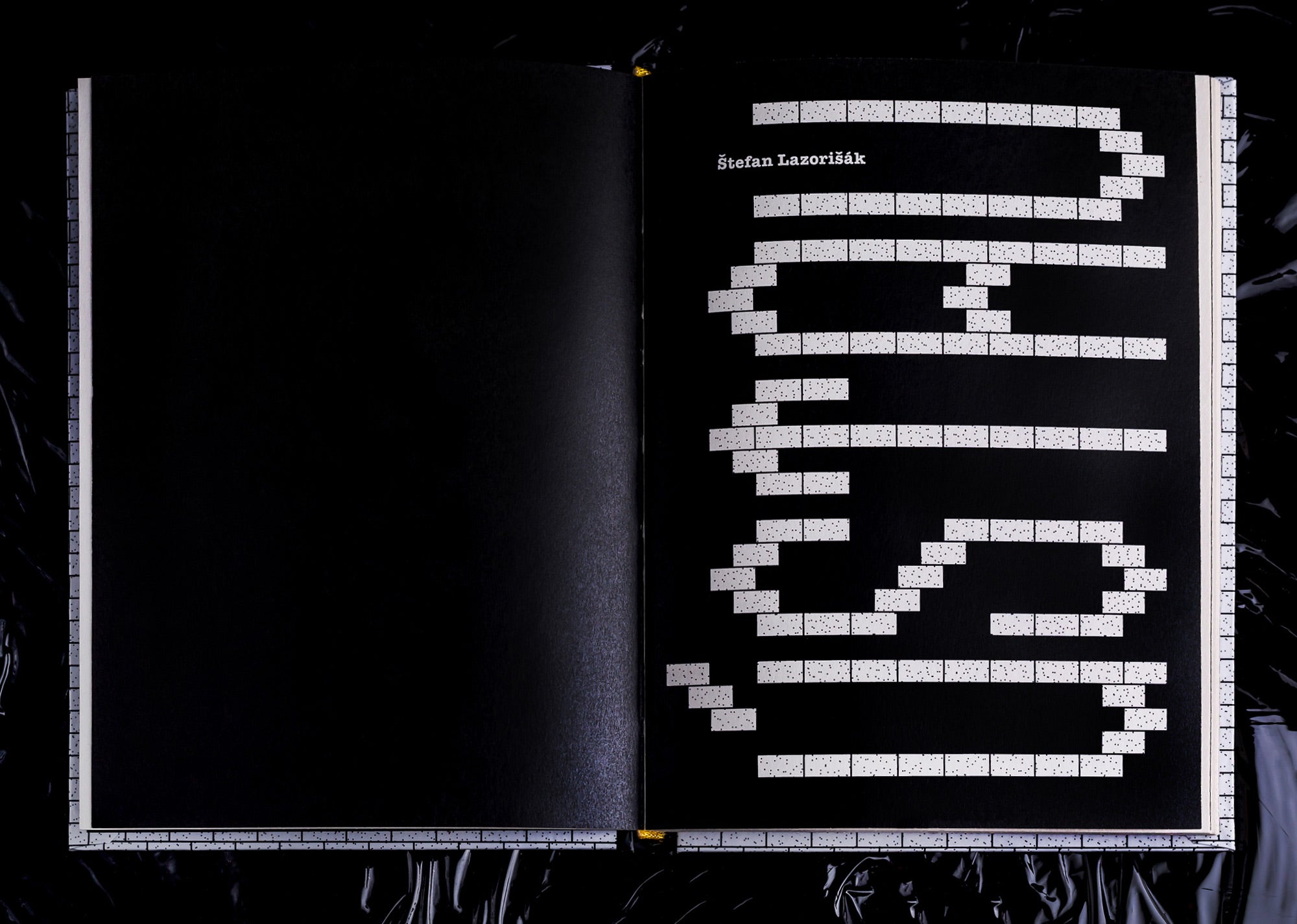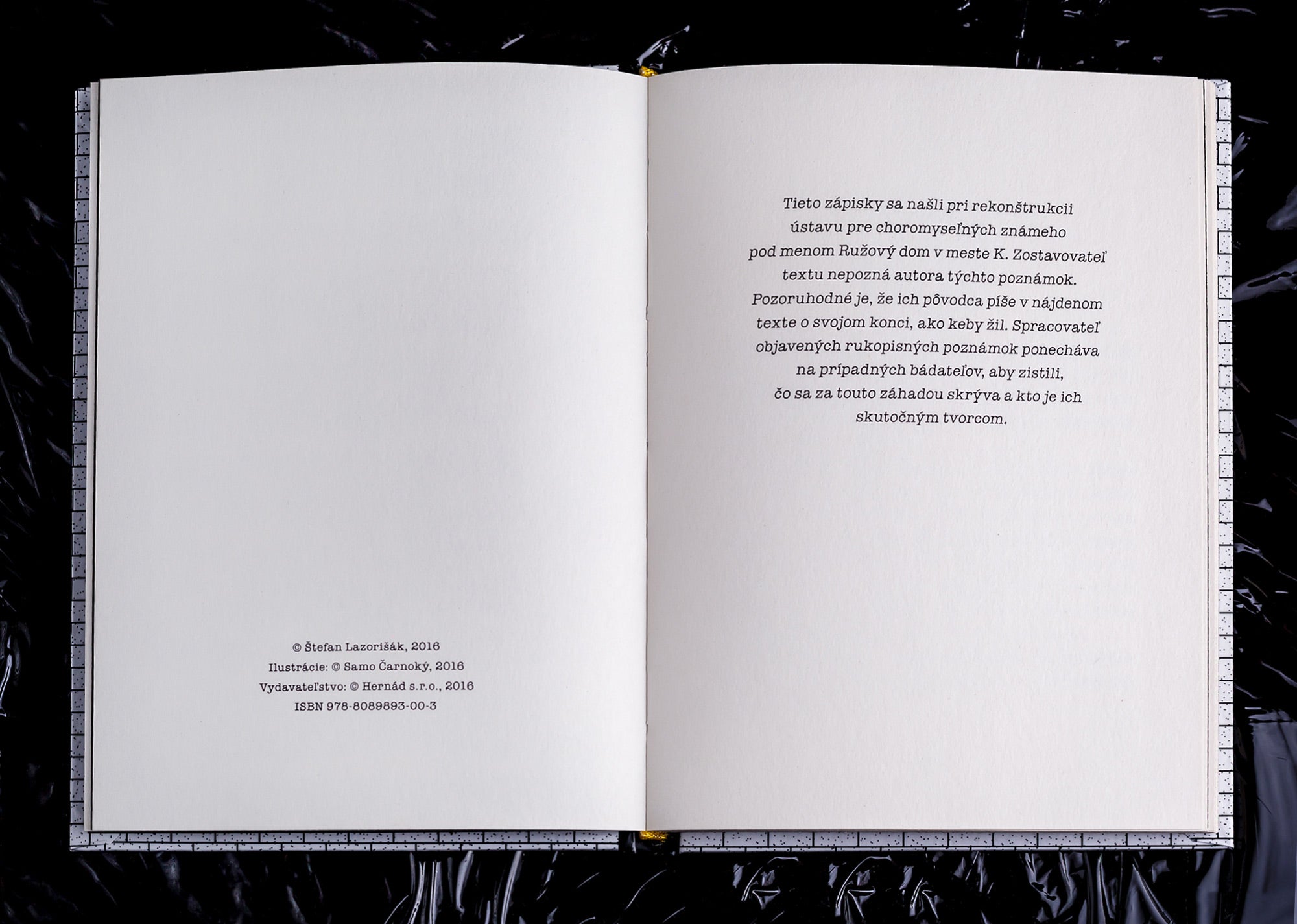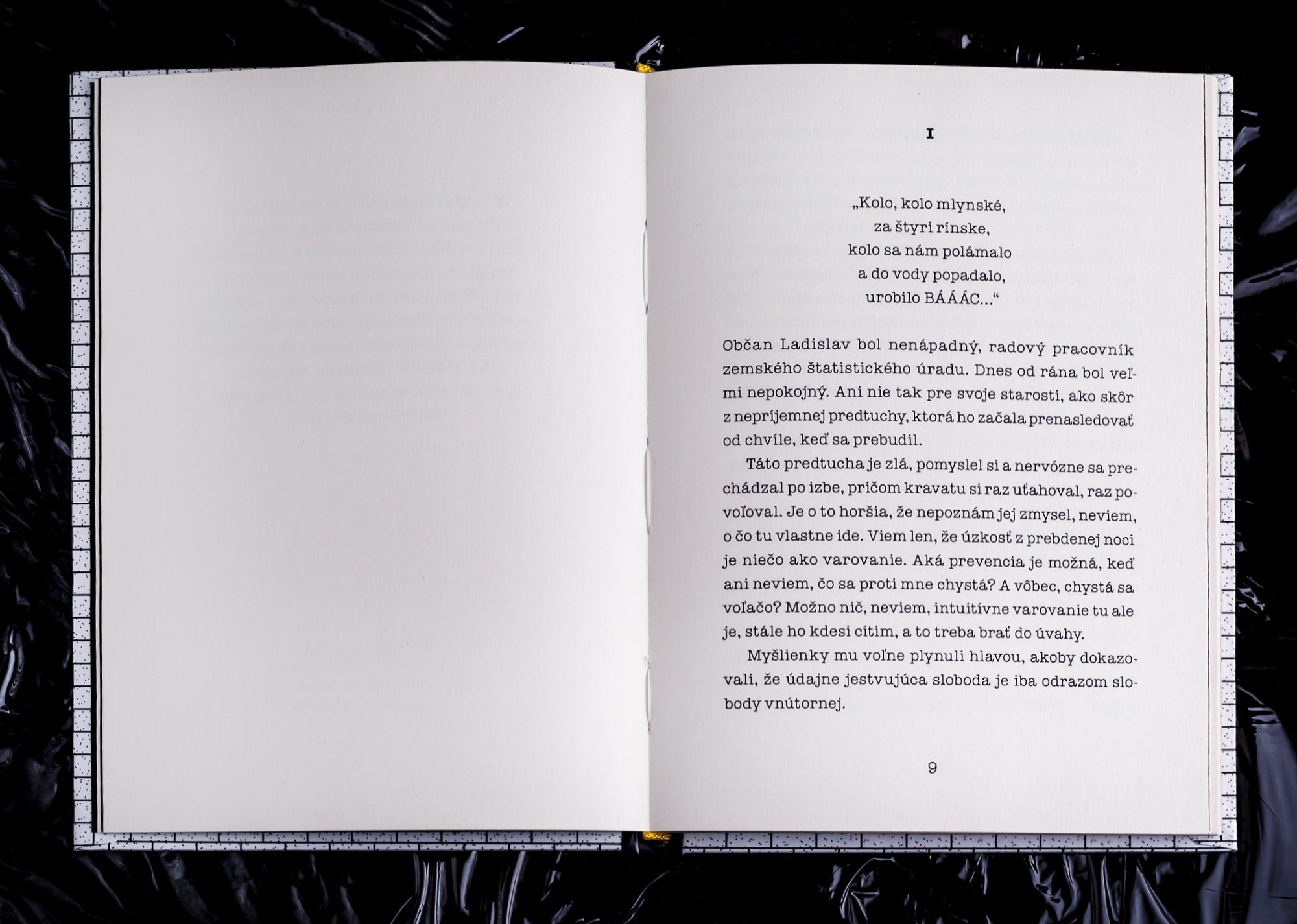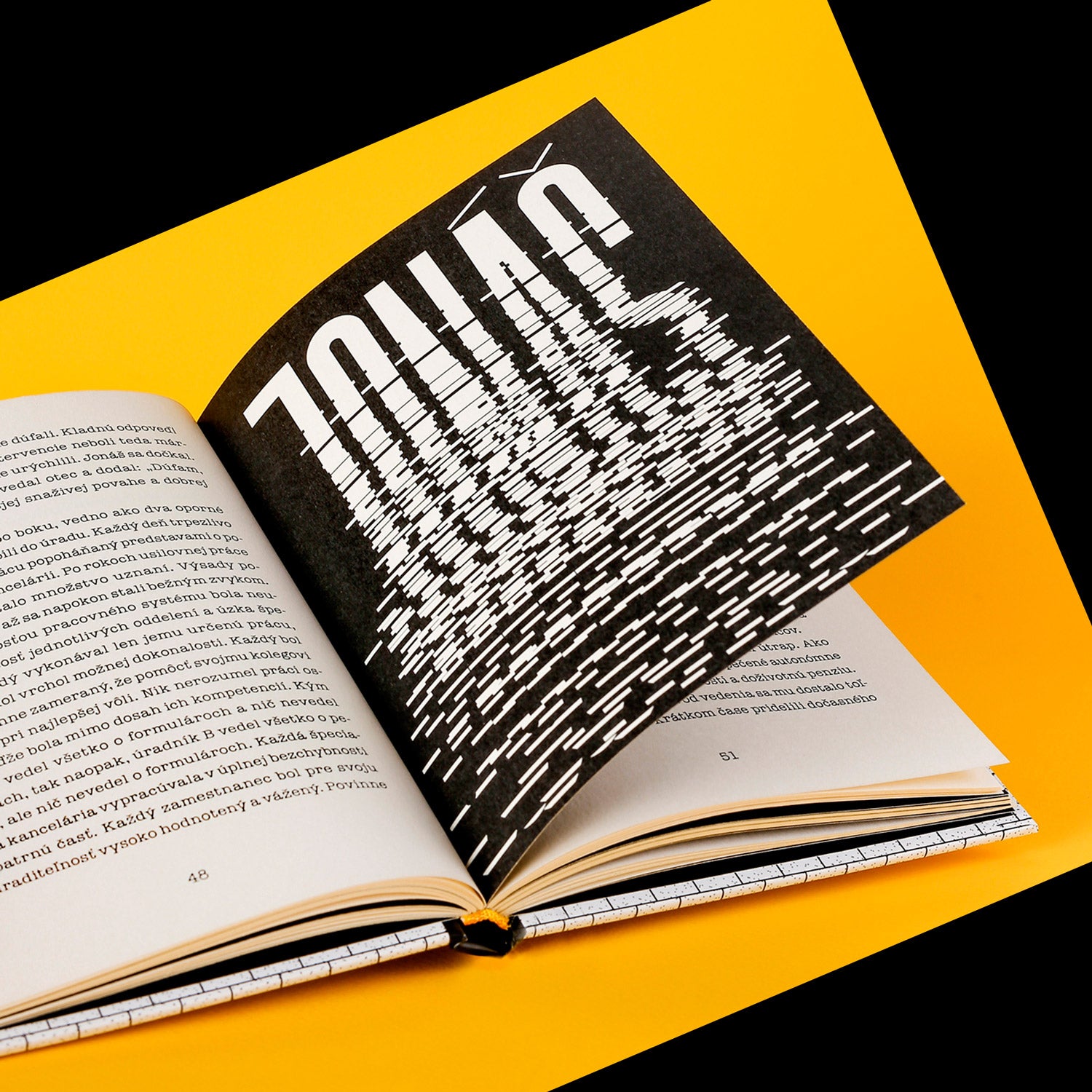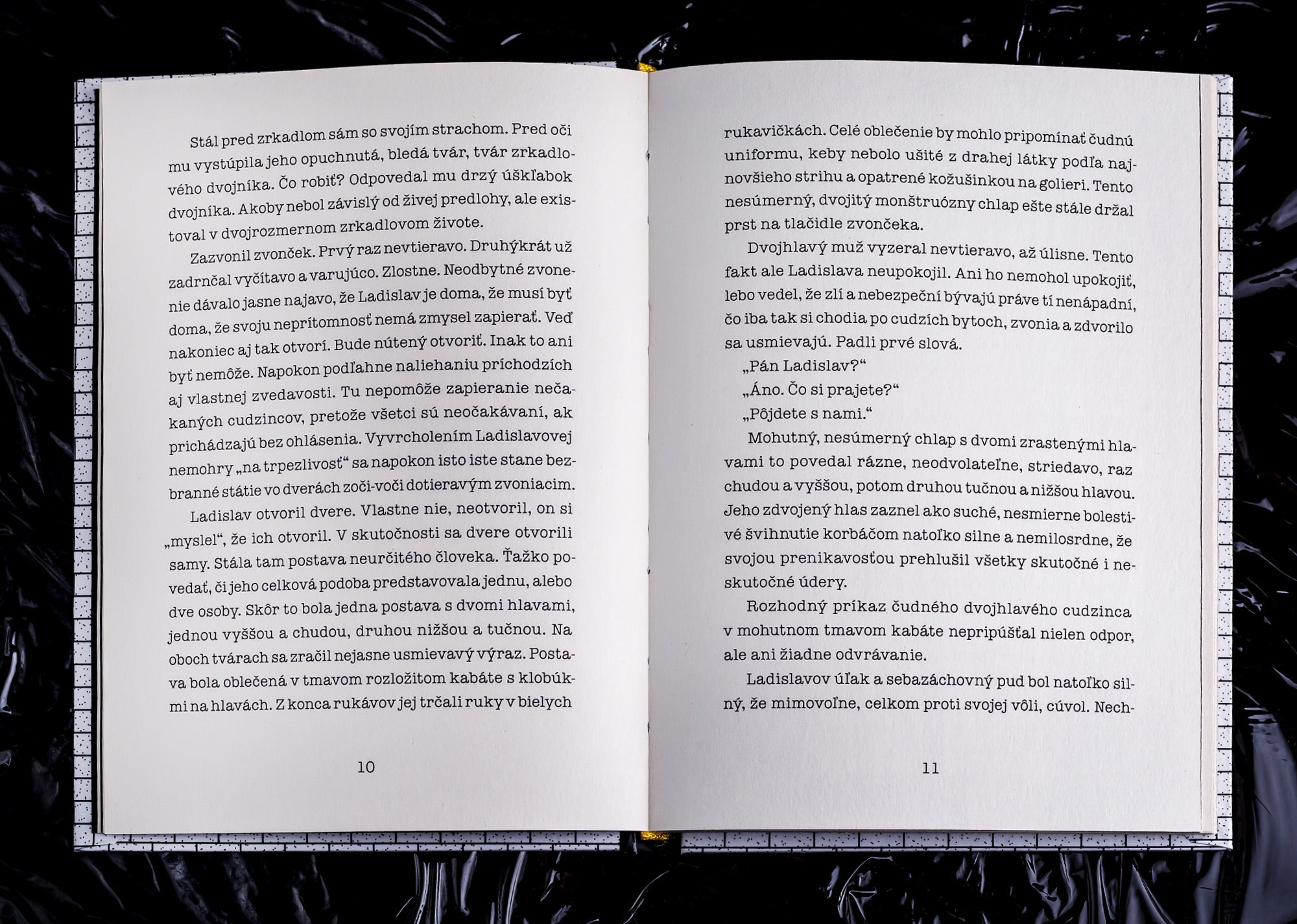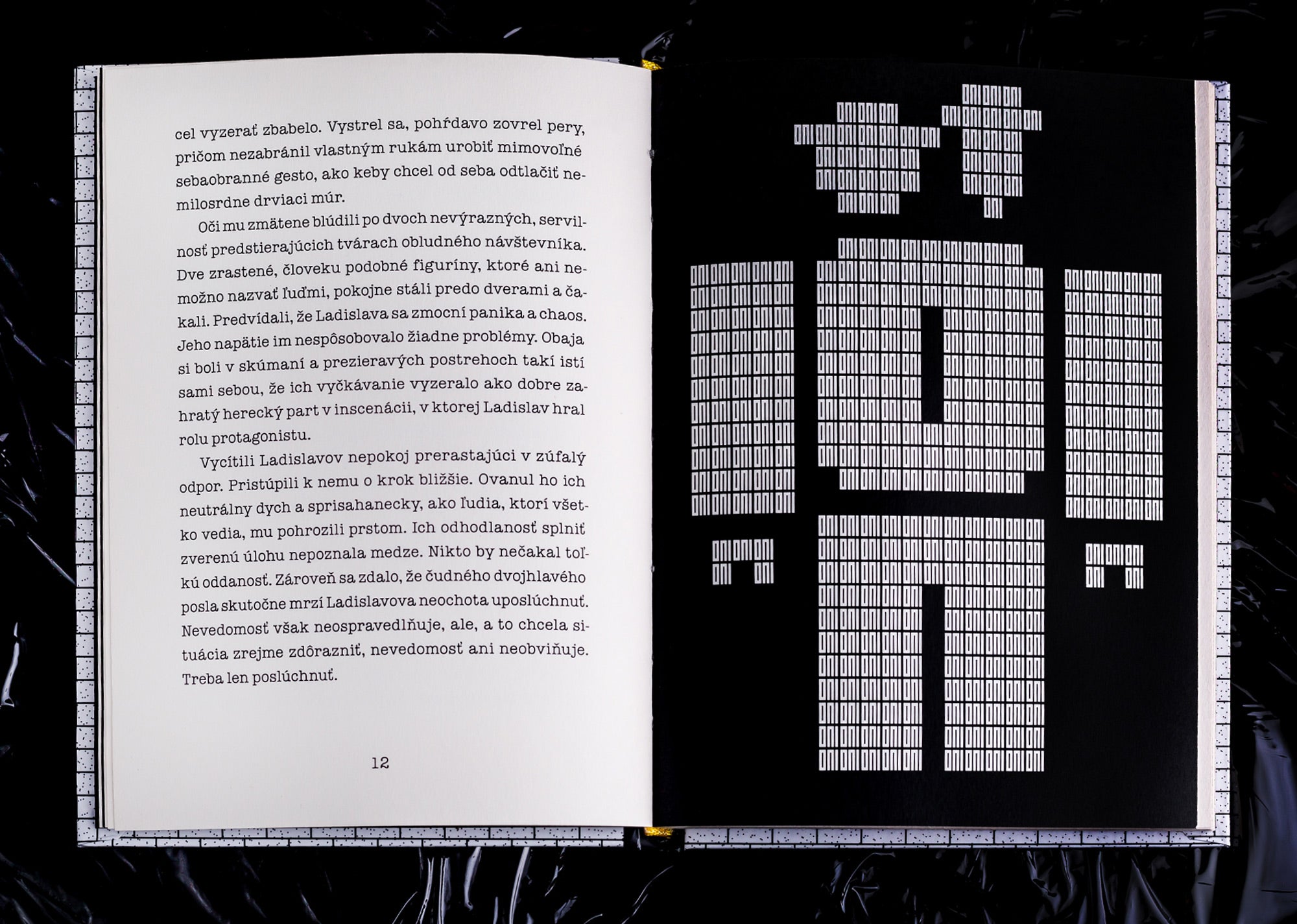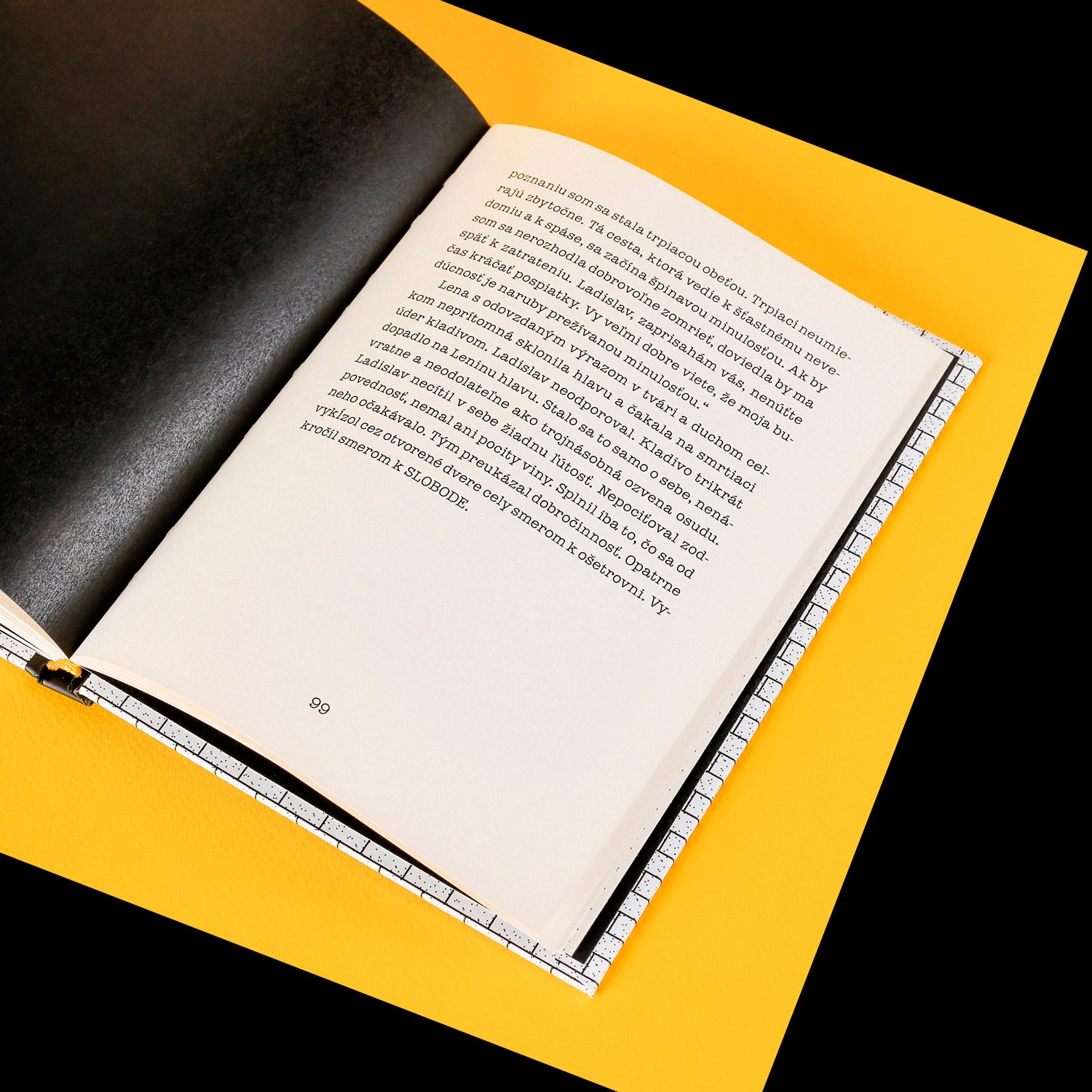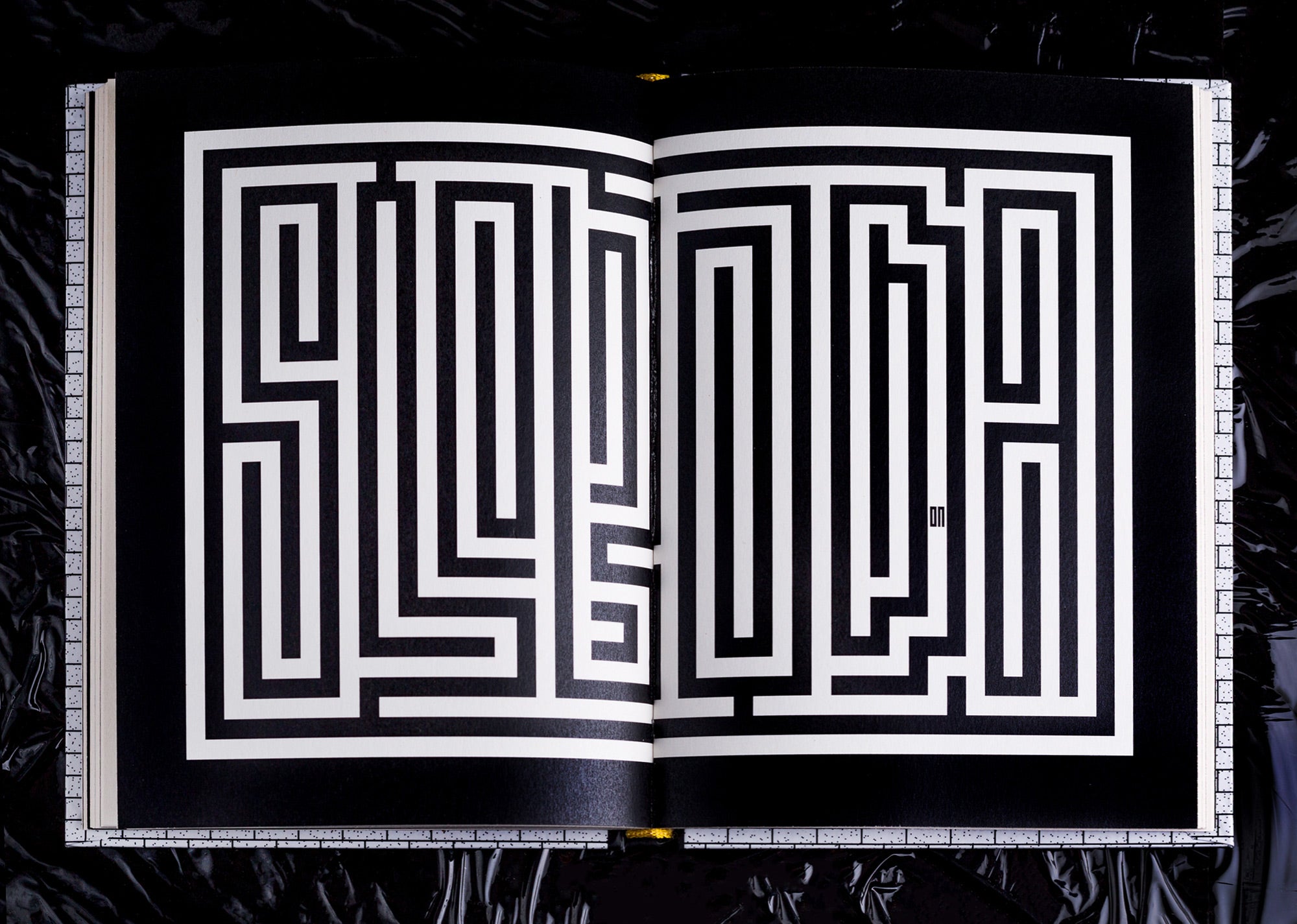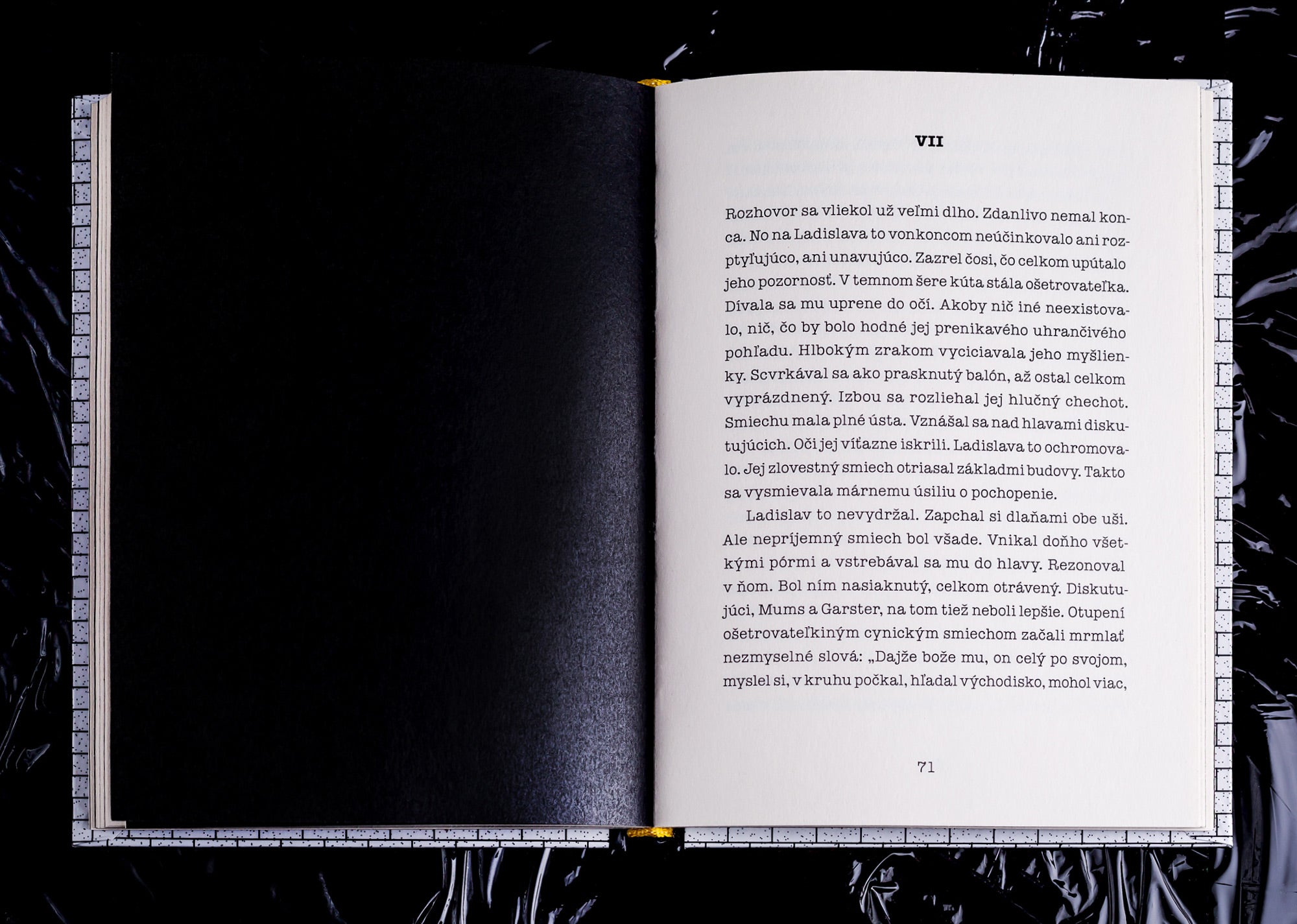
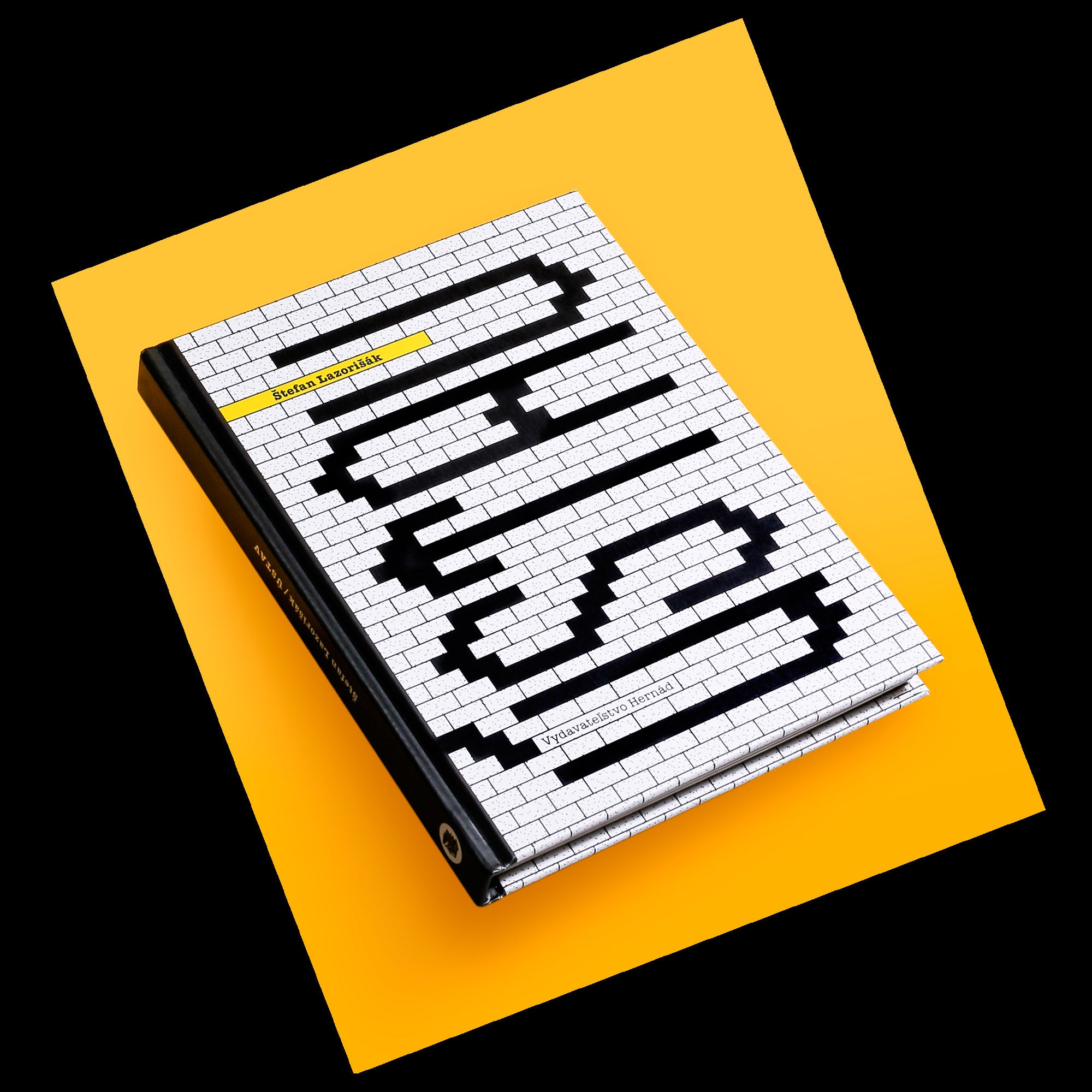
Graphic design for the book by Štefan Lazorišák — The Institution, belonging to his kafkaesque period of the early 1980s. The dark and hopeless content (freedom is a maze with no escape) set in a typewriter font expresses the era’s authenticity and its institutionalization. The graphic layout includes six monochromatic full-page illustrations in typographic rendering. Let’s be honest: don’t we all still live in some kind of huge institution?
Štefan Lazorišák: Ústav • cloth binding • 125 × 165 × 10 mm • 112 pages • typeface: American Dreamwriter • published by: Hernád, Košice 2016 • photo credits: Diana Dobrescu • design: © Samuel Čarnoký (2016)